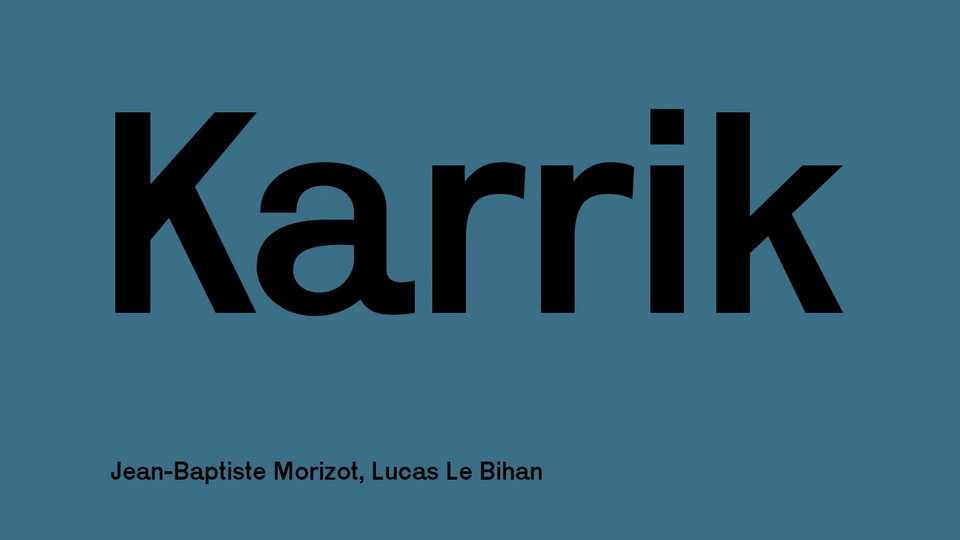
Download Karrik typeface, a font family with original take on the Grotesque genre. Using purposely a carefully irregular drawing and avoiding optical corrections, Karrik aims to recall early naïve and clumsy sans-serifs.